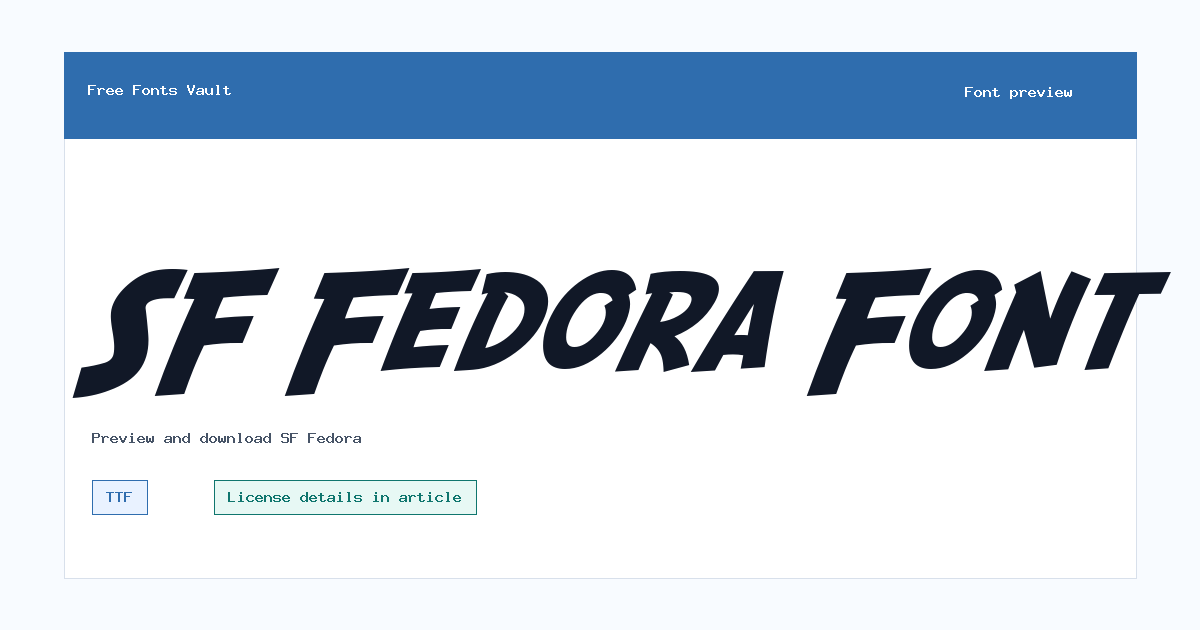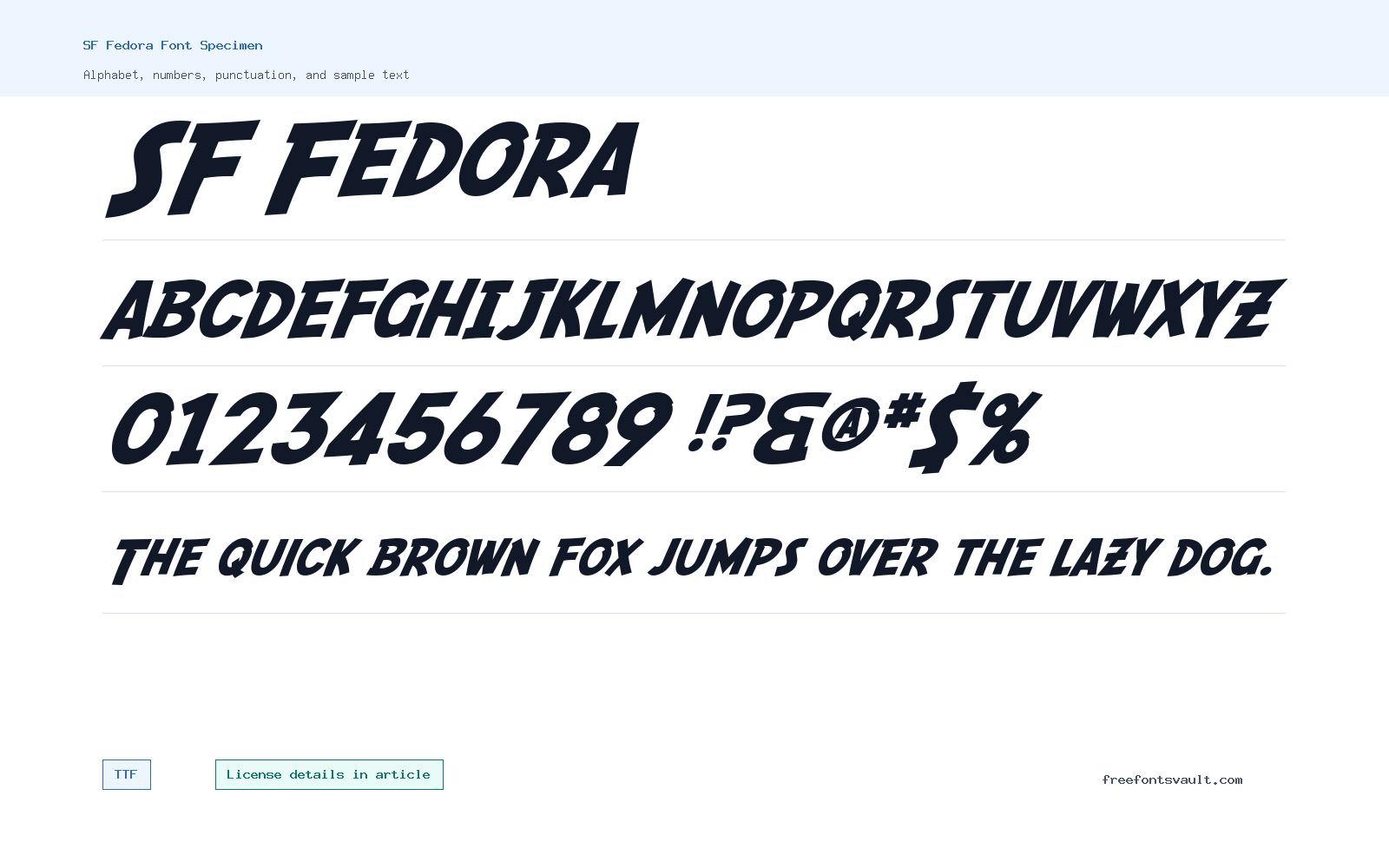
SF Fedora
SF Fedora Font
SF Fedora is a single-style TrueType font from ShyFonts Type Foundry. It is best approached as a display font to test in short previews, titles, and design drafts rather than long reading text.
About SF Fedora
SF Fedora comes as one regular TTF file, so visitors can preview the main style directly without choosing between multiple weights or italics. Since there is only one listed variant, it is a good idea to test the exact words you plan to use, especially if your design depends on spacing, punctuation, numbers, or mixed uppercase and lowercase text.
Use SF Fedora where a project needs a distinct title treatment, poster line, label, thumbnail heading, or short decorative phrase. Keep body copy in a simpler companion font so the design stays readable. If you are preparing a client project, product, logo, merchandise, app, ebook, or advertising asset, confirm the usage rights first because the license terms are not stated here.
Because SF Fedora is a decorative display choice, judge it in context rather than from the alphabet alone. A font can look strong in a specimen but feel too busy once it sits beside photos, icons, or long captions. Build a quick title mockup, then check whether the words are still clear at thumbnail size.
If the project needs a retro, character-led heading, keep the supporting design simple. Too many decorative elements around the title can make the whole layout feel crowded. Let SF Fedora handle the personality, then use a quieter companion font for dates, descriptions, prices, and calls to action.
• Suited to short display text rather than long paragraphs
• Distinctive display personality for designs that need more character than a neutral sans serif
• Useful for testing title treatments before choosing a final licensed font for production
• Poster titles and event graphics
• YouTube thumbnails or social media headings
• Short labels, badges, and cover text
• Personal design drafts and preview testing
• Retro-inspired title studies, themed graphics, and visual identity sketches
• Short words where the font shape can stay readable without extra explanation